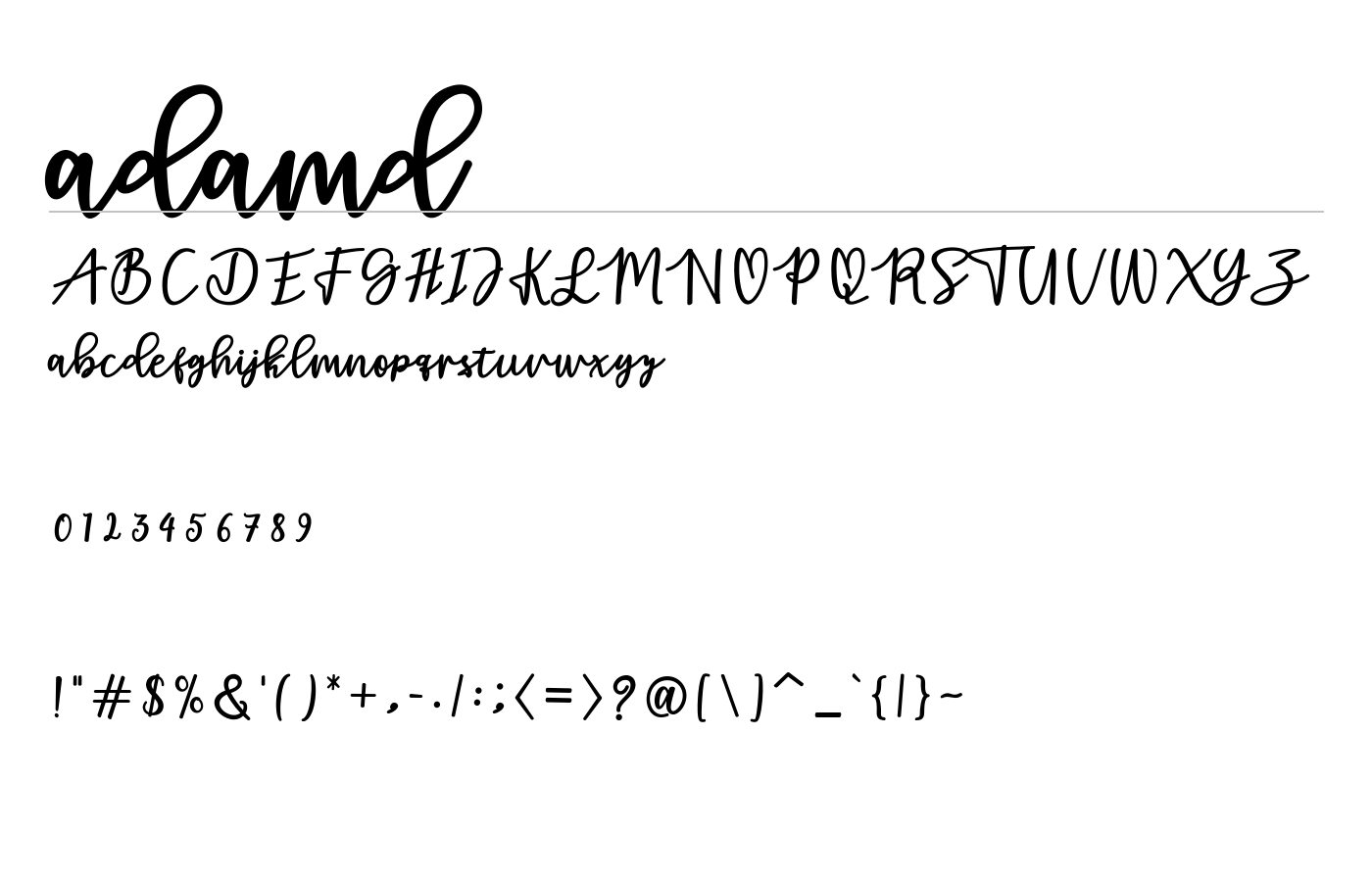
The adamd font is a lively and elegant script typeface with a handwritten feel, featuring smooth, flowing strokes and a moderate contrast that adds warmth without sacrificing readability. Its playful yet refined character makes it perfect for creative branding, invitations, and stylish headlines where a personal, approachable touch is desired. This font works well in designs seeking a modern, friendly, and artistic vibe, balancing sophistication with casual charm.
adamd Font
About adamd Font
| Font family | adamd Font |
| Designer | munawir |